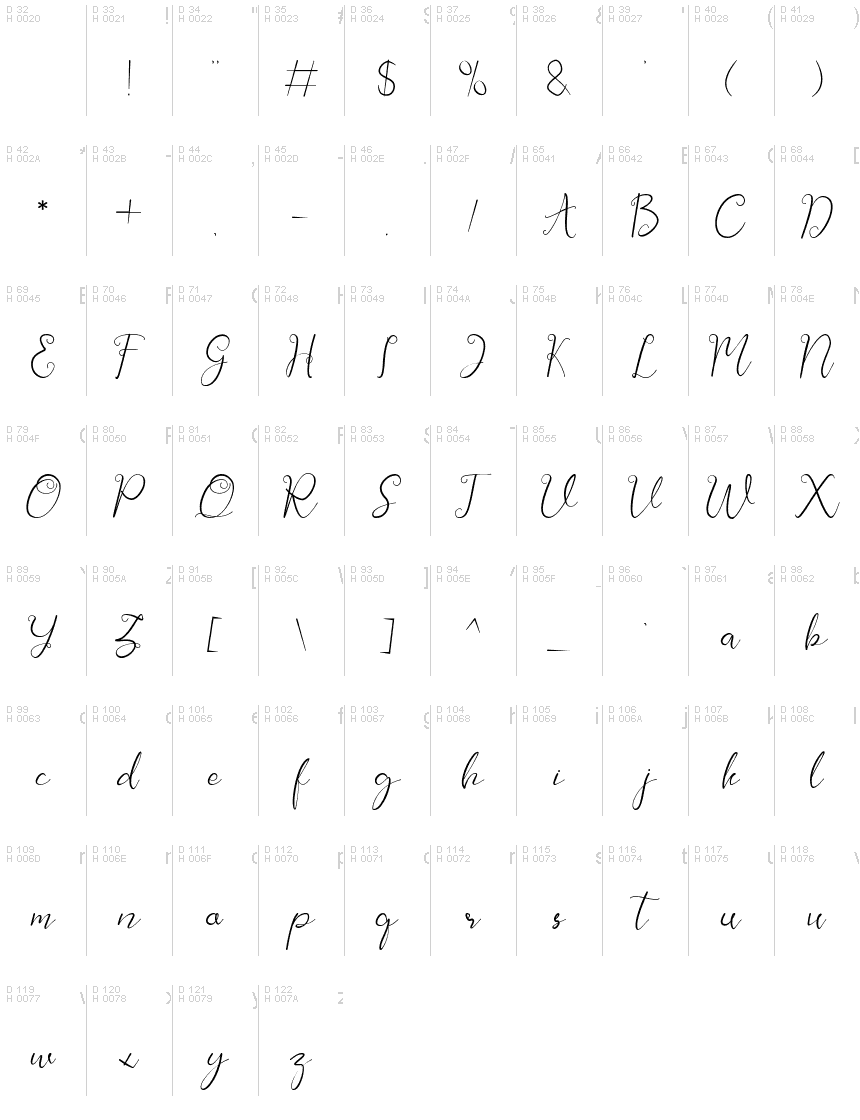
Jeliya elbern
Jeliya Elbern, a stunning handwritten font designed by Muksal Creative in 2019, is perfect for projects that require a unique and artistic touch. With its semi-light weight and calligraphic flair, this font is suitable for a variety of creative projects such as wedding invitations, greeting cards, logos, branding materials and social media graphics. Jeliya Elbern's elegant curves and natural strokes lend themselves beautifully to any design project that demands a personal touch. Whether you're looking to add some personality to your next project or simply want to stand out from the crowd, Jeliya Elbern is the perfect choice for all your creative needs.